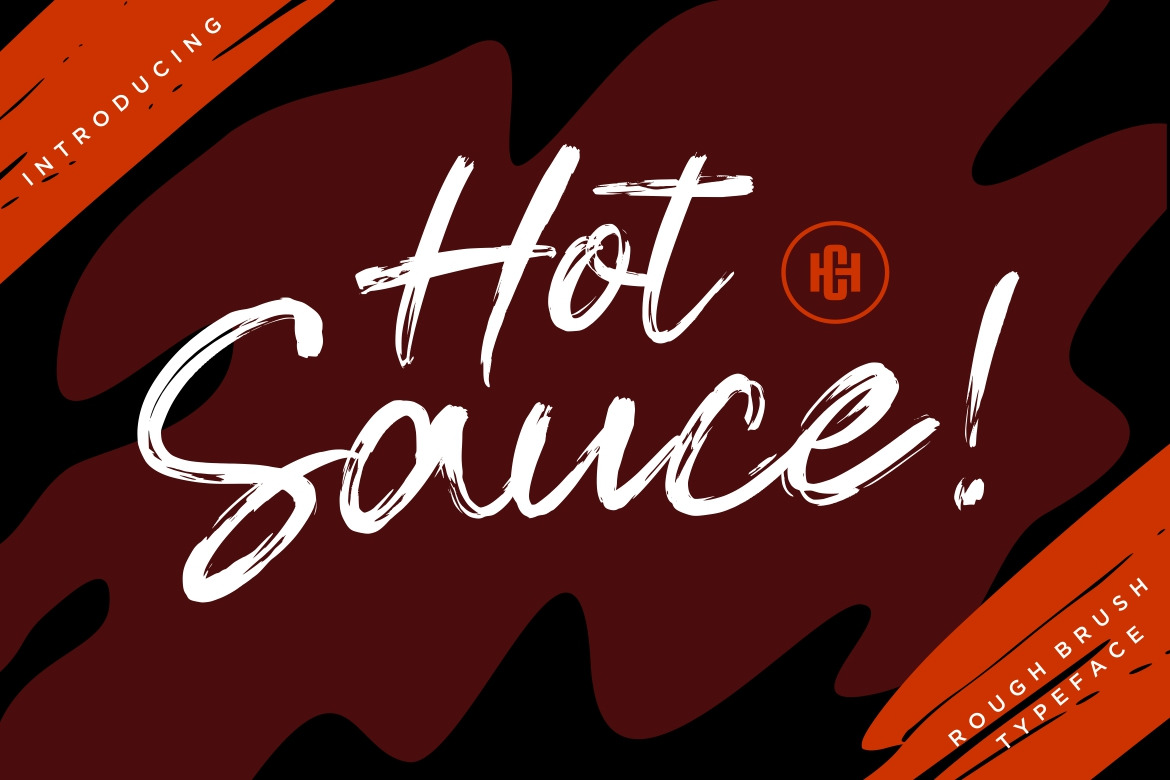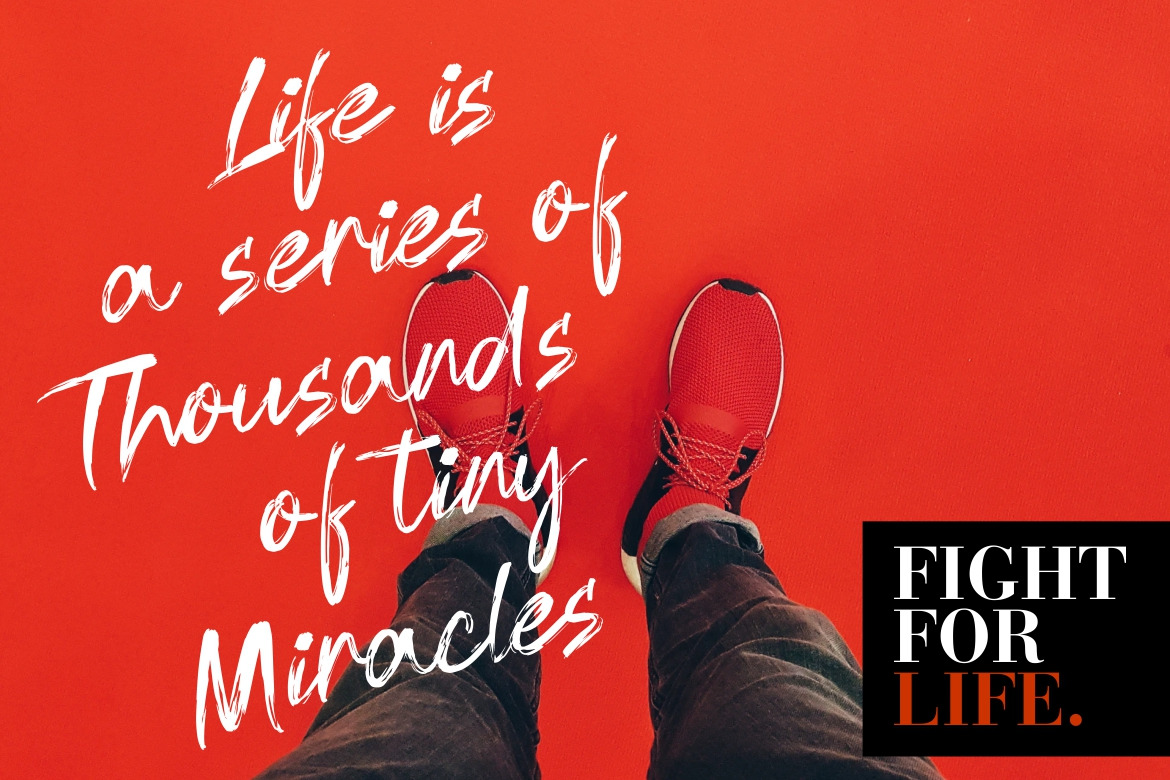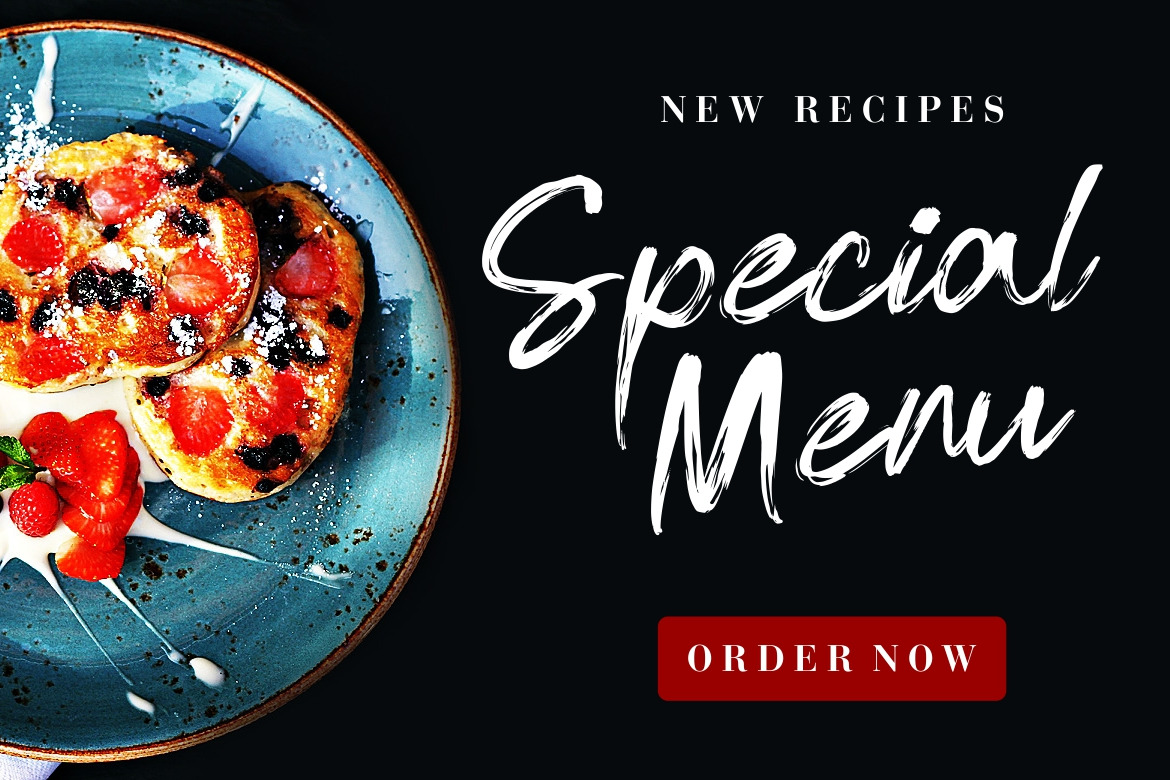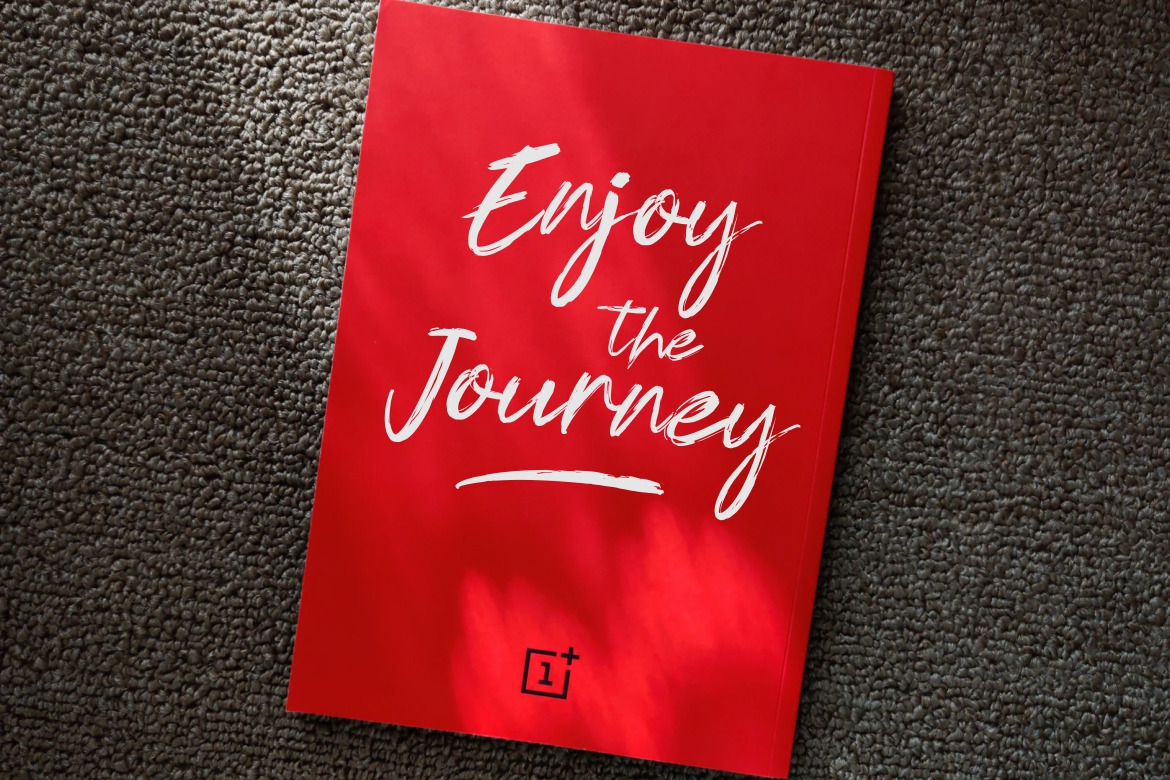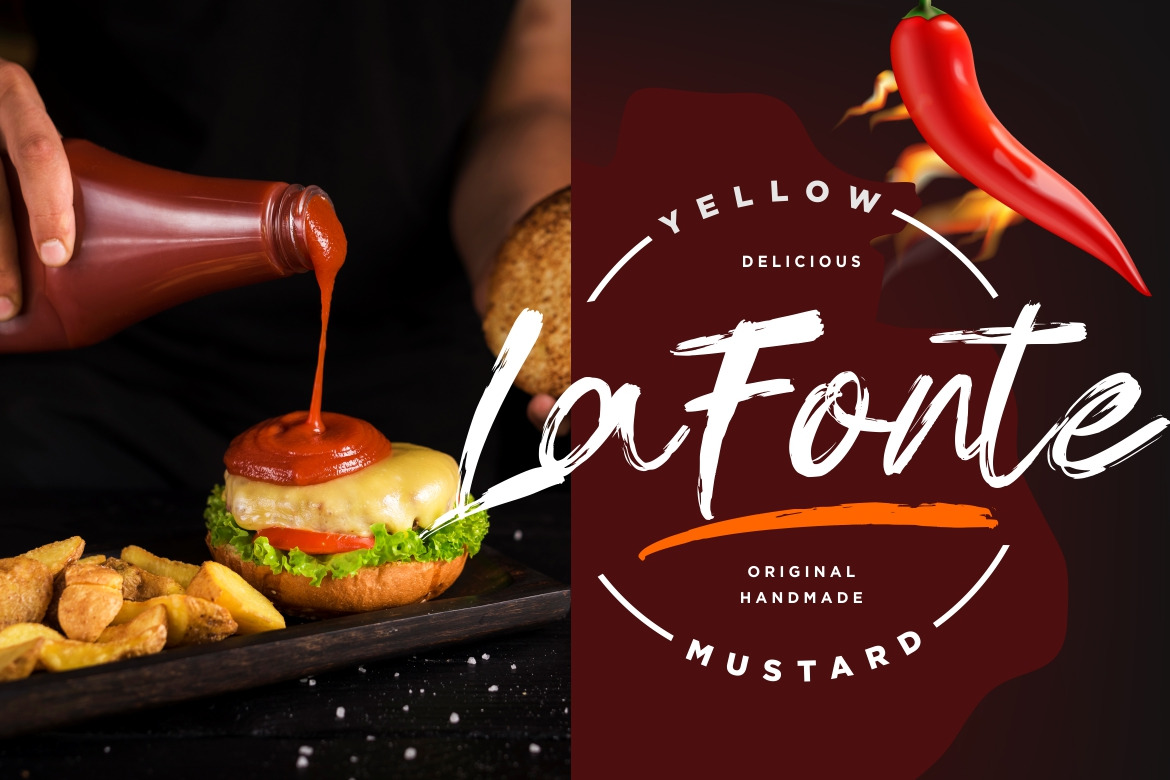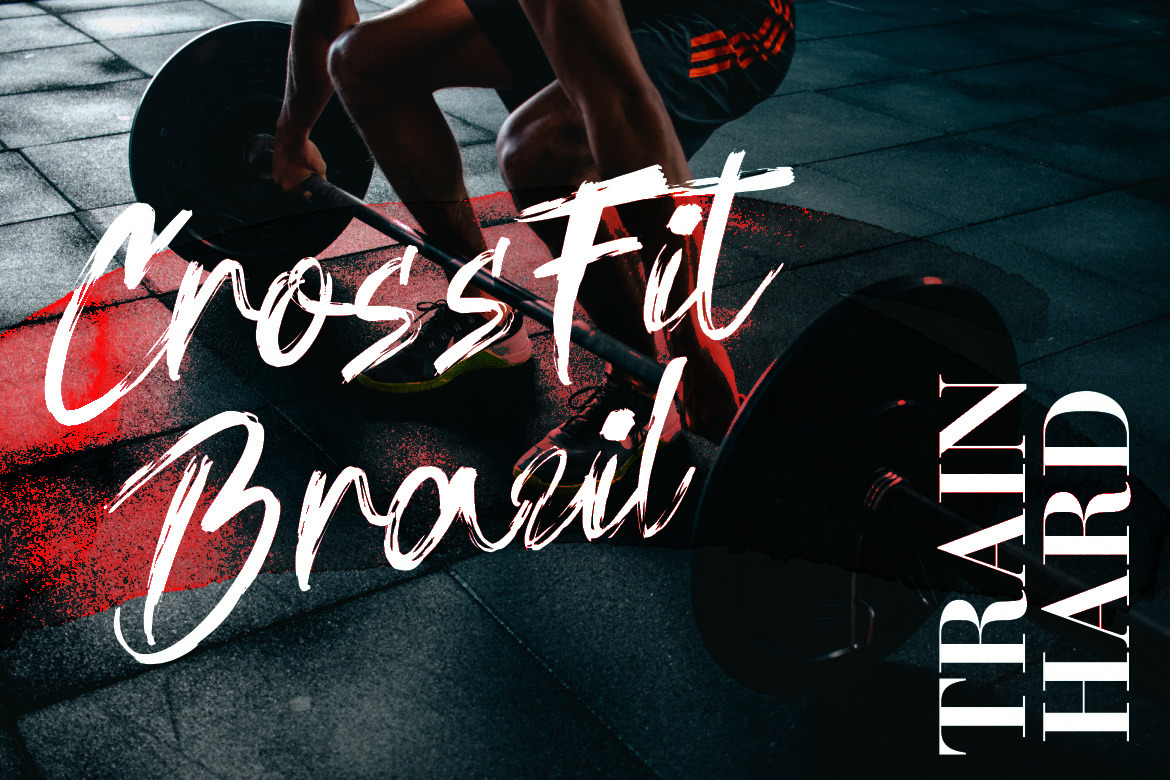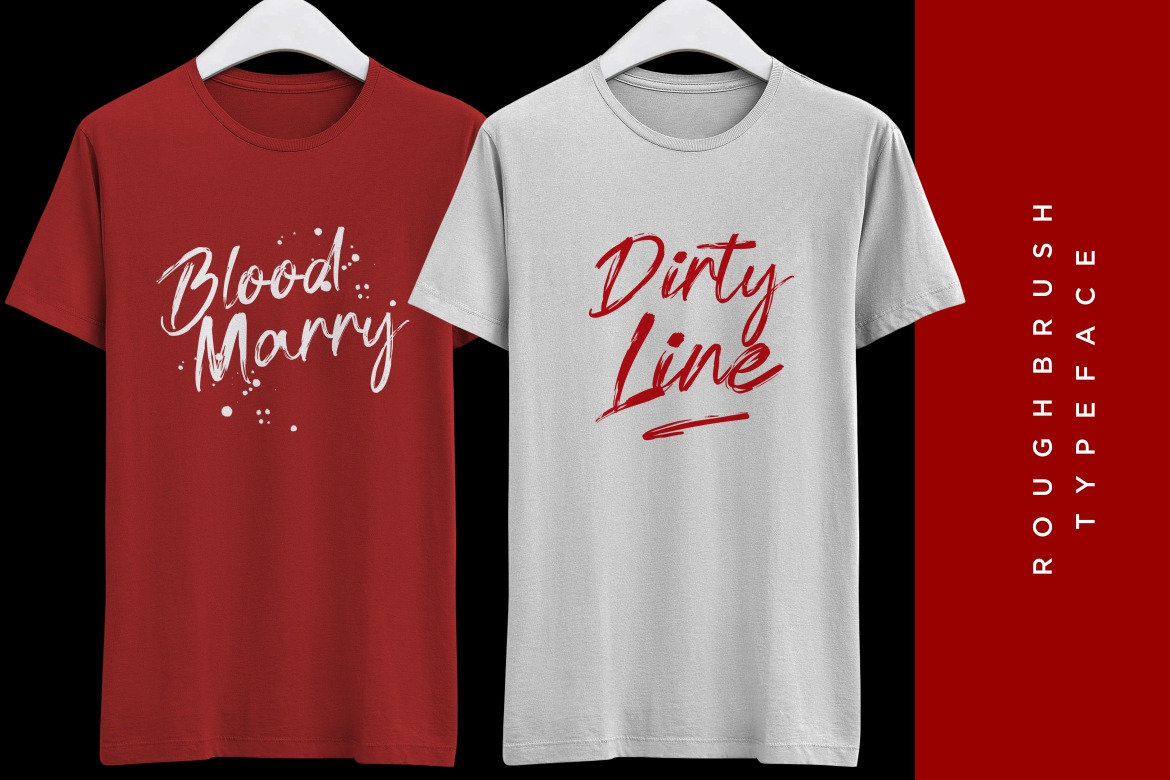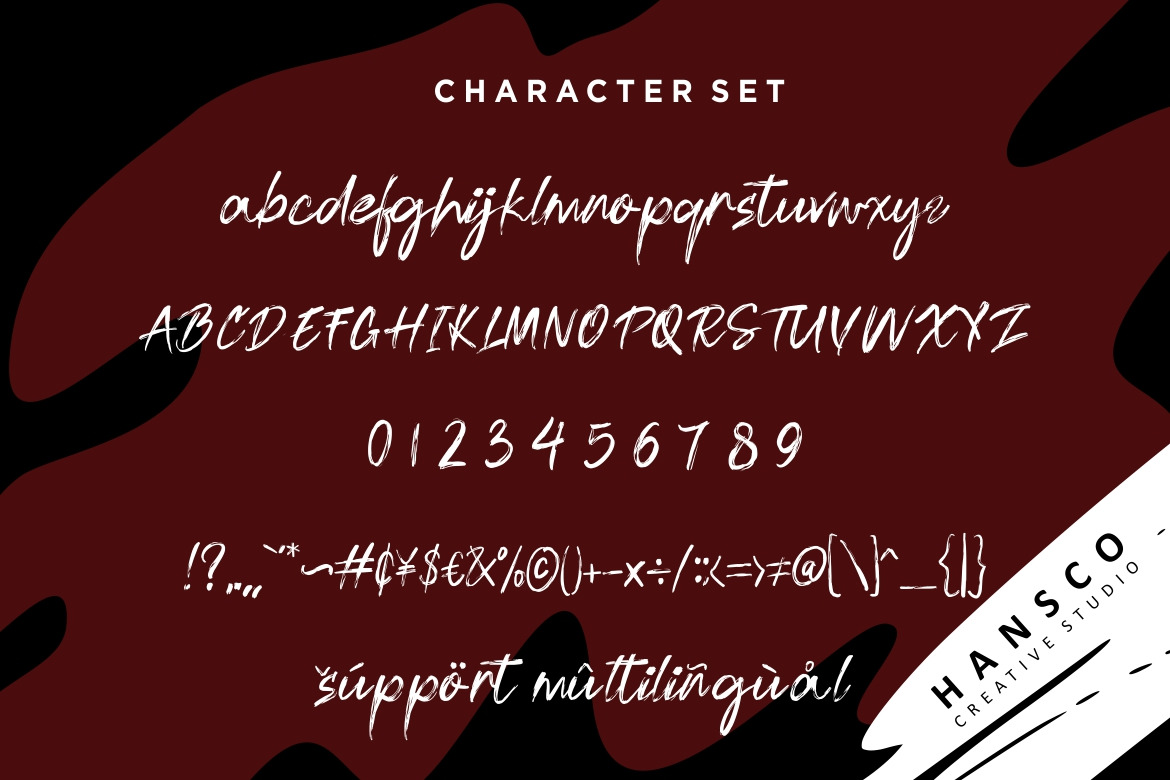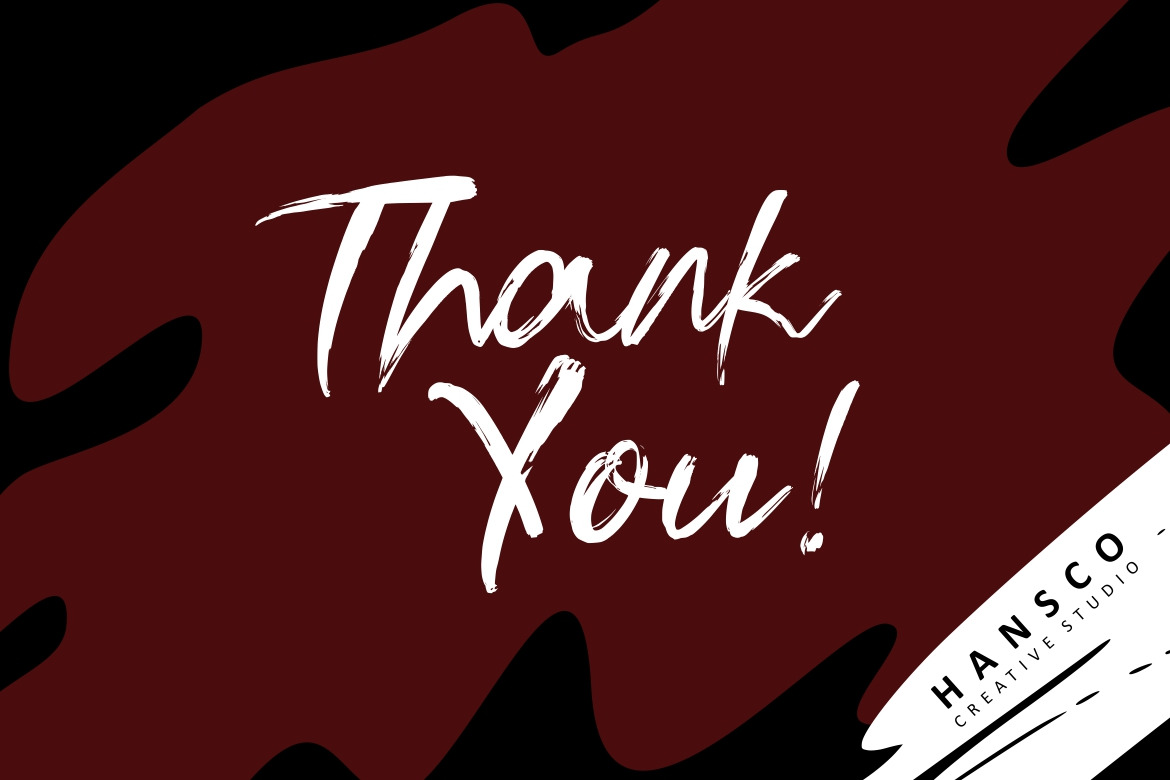
Hot Sauce Font
Hot Sauce is handwritten font with dry brush texture. This texture is very detailed. You can get the swash brushes include as a alternate in this font. Hot Sauce is suitable for logo, product branding, or for text overlay to any background image.